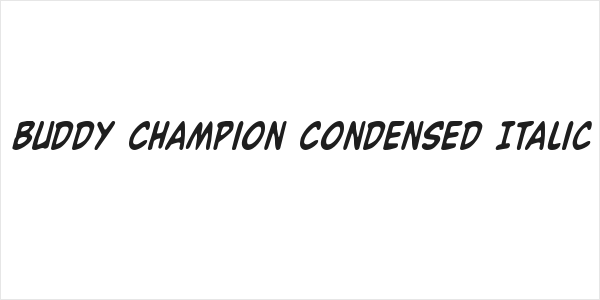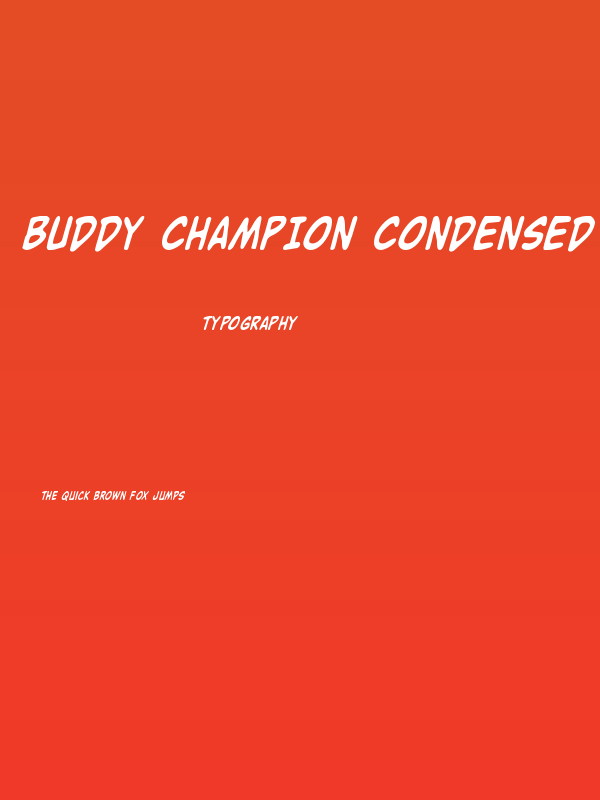
Buddy Champion Condensed Italic Font
Buddy Champion Condensed Italic Description
This font features a bold and dynamic style with a condensed and italicized form. The letters are slightly slanted, giving a sense of movement and energy. The strokes are thick and consistent, providing a strong visual impact. The uppercase and lowercase letters maintain a uniform appearance, while the numbers and special characters are designed to complement the overall aesthetic. The font's condensed nature allows for efficient use of space, making it suitable for various design applications.
| Proposed Projects | Ideal for sports branding, dynamic posters, energetic advertisements, and modern logo designs. |